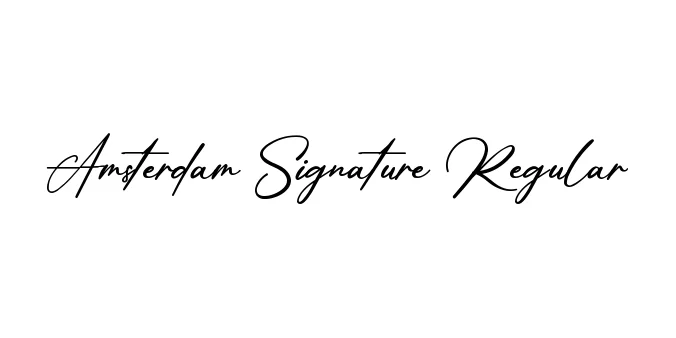
Amsterdam Signature Regular
Designed by Lettersiro Studio
| Font Name | Amsterdam Signature |
| Category | Script / Signature |
| Designer | Lettersiro Studio |
| Similar Fonts | Brittany Signature, Autography, Rochester, Pinyon Script |
Amsterdam Signature Regular is an elegant and sophisticated handwritten script font designed to mimic natural penmanship with precision and grace. Developed by Lettersiro Studio, it features fluid strokes and stylish ligatures that convey a sense of luxury and high-end exclusivity. Its design captures the essence of a real signature, making it a go-to choice for creators seeking an authentic, manual feel in their digital projects.
This typeface has gained significant popularity in the worlds of fashion and photography due to its balanced weight and organic flow. Beyond professional branding, it is widely utilized for wedding invitations and social media graphics where a personal touch is paramount. The font serves as a perfect bridge between traditional calligraphy and contemporary minimalist design, ensuring legibility while maintaining a decorative flourish.
Amsterdam Signature Regular Best Uses
Creating unique and personal brand identities and professional logos.
Ideal for adding stylish watermarks and signatures to creative work.
Perfect for elegant invitations, RSVPs, and formal event signage.
Crafting eye-catching quotes and high-end promotional graphics.
Adding a sophisticated flair to magazine headlines and book covers.